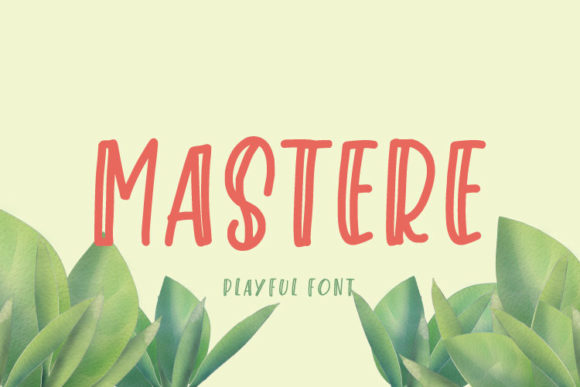
Feast your eyes on Mastere Font, the captivating display font that exudes a unique blend of coolness and playfulness. Its versatile nature makes it a treasure for any designer or creative professional. With Mastere, the possibilities are endless, as it seamlessly adapts to a multitude of projects, leaving an unforgettable mark on your visual creations.
Immerse yourself in the world of Mastere and discover its enchanting aura. Whether you're crafting wedding videos, designing posters, or creating eye-catching social media posts, Mastere will effortlessly elevate your work to new heights. Its distinct character adds a touch of magic to any project, captivating your audience and leaving them spellbound.
Turn your creative visions into reality with Mastere. Let its playful spirit ignite your imagination and guide you towards extraordinary designs. From elegant wedding invitations to quirky social media posts, Mastere possesses the versatility to transform your ideas into captivating masterpieces. Unleash your creativity and witness the remarkable results that Mastere brings to life.
With Mastere, you'll embark on a journey of design exploration, discovering new depths of creativity you never knew existed. Its user-friendly nature makes it accessible to designers of all levels, empowering you to create stunning visuals that leave a lasting impression. Embrace the charm of Mastere and watch as your designs blossom into works of art.